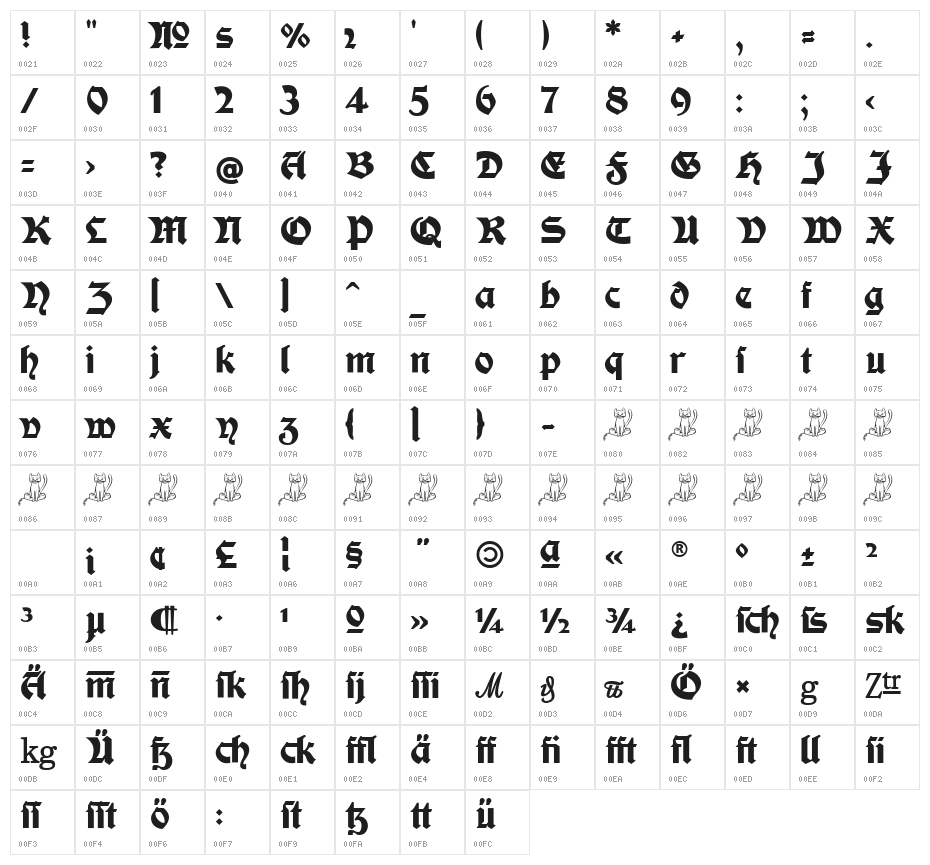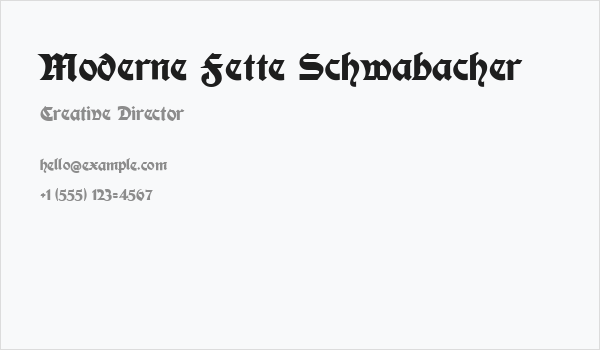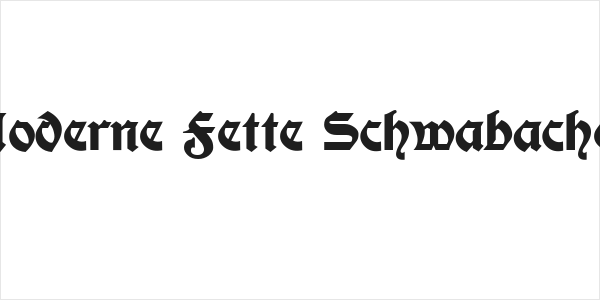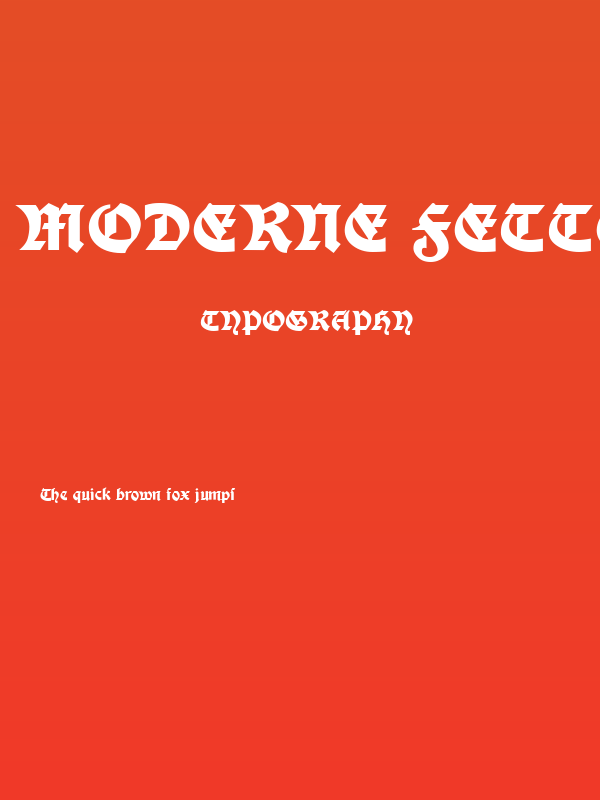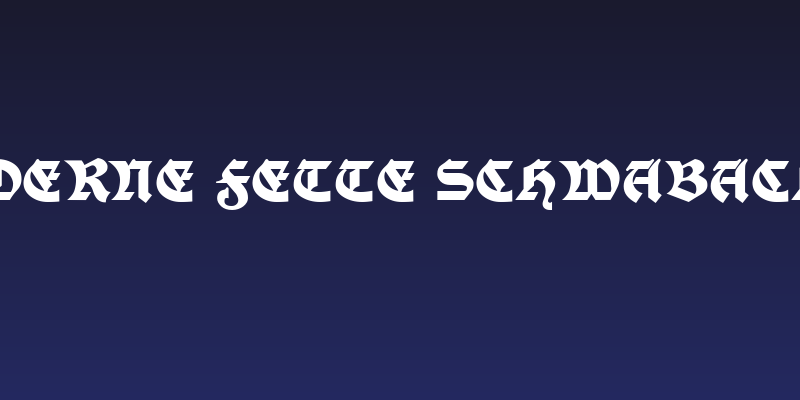
Moderne Fette Schwabacher Font
Moderne Fette Schwabacher Description
This font is a bold and striking example of Blackletter typography, characterized by its dramatic and angular strokes. The letters are heavily stylized with sharp, pointed serifs and a distinct medieval aesthetic. The uppercase letters are particularly ornate, featuring intricate details that give them a sense of grandeur and historical significance. The lowercase letters maintain the same level of detail, with unique flourishes that enhance their visual appeal. Numbers and special characters are equally bold and consistent with the overall style, making them suitable for decorative purposes. This font exudes a sense of tradition and authority, perfect for projects that require a touch of historical elegance.
| Proposed Projects | Ideal for historical documents, certificates, book covers, and branding that requires a traditional or gothic touch. |